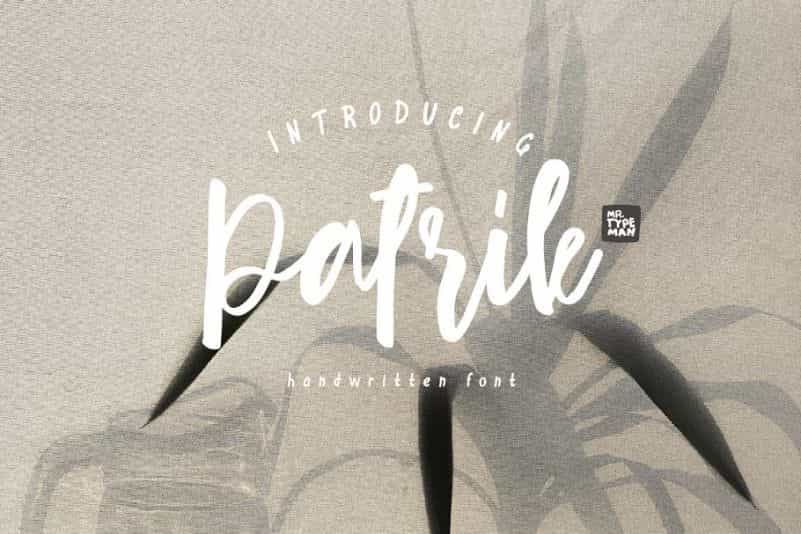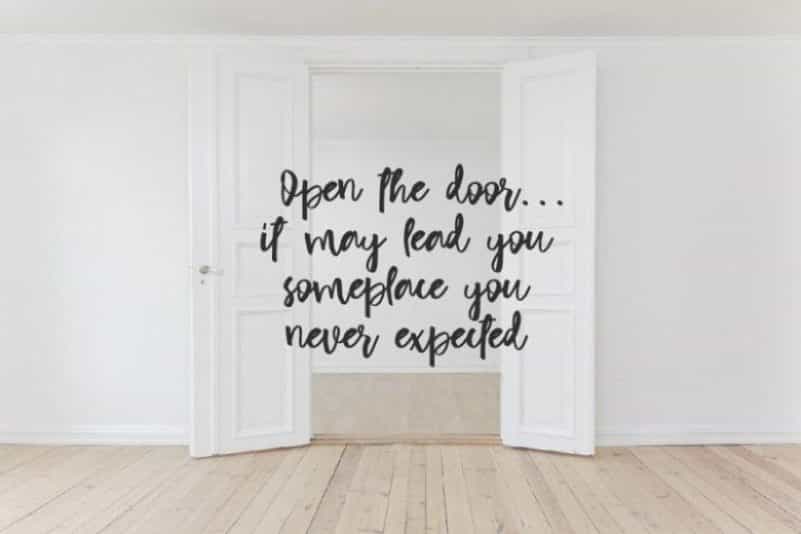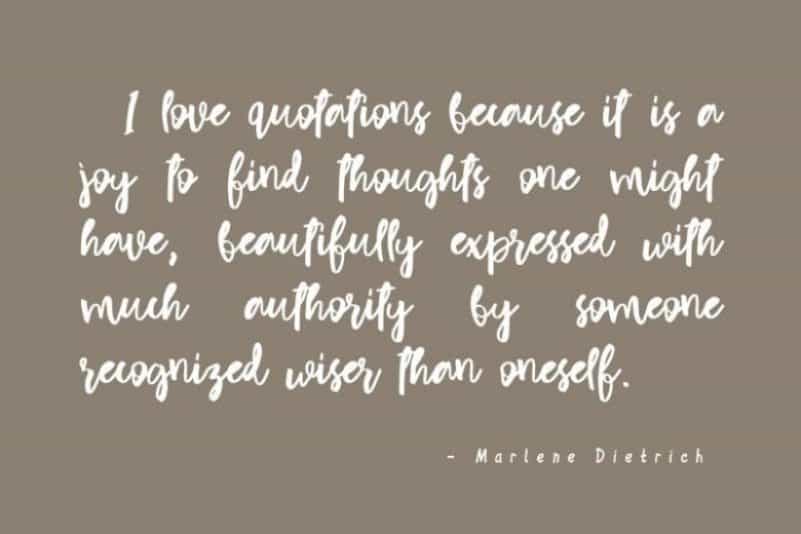
Discover Patrik Script Font, part of the Brush Handwritten collection—a versatile and unique font perfect for adding a personal touch to your projects. Download it for free and enjoy crafting designs with style, from invitations to social media posts. This font is available exclusively for personal use, giving you the freedom to create without limits. Unlock your creativity with Patrik Script Font today!
Patrik Font is was designed to give an almost authentic feel of being handwritten on paper. This font that you can use right now to add that little extra something to your creations. The table is design and shared by Mr. Typeman. It is quite polite and stately. If you want to put that special something, that spice, that glimmer in your projects then it is exactly what you are looking for.